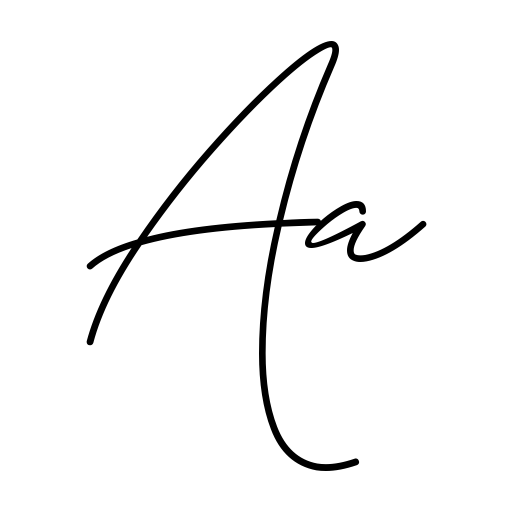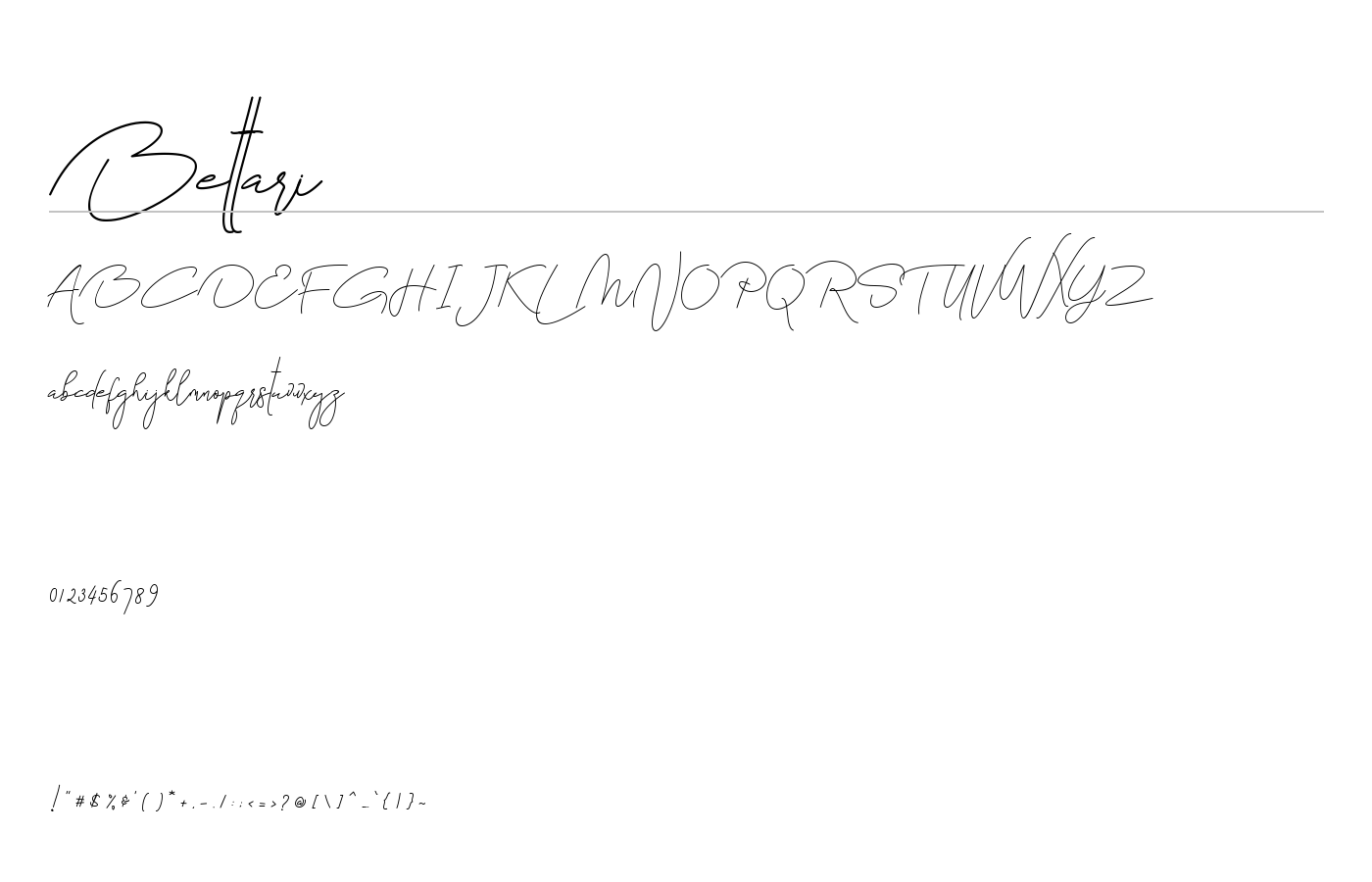
Bettari is a delicate and elegant script font characterized by its thin, flowing strokes and graceful, handwritten style. Its tall, airy letterforms and refined curves make it perfect for sophisticated branding, invitations, and fashion-oriented designs where a touch of personal elegance is desired. This font works best in settings that require a light, artistic feel, such as logos, editorial accents, and stylish packaging.
Bettari Font
About Bettari Font
| Font family | Bettari Font |
| Designer | Tiny Hand Letter 2021 |